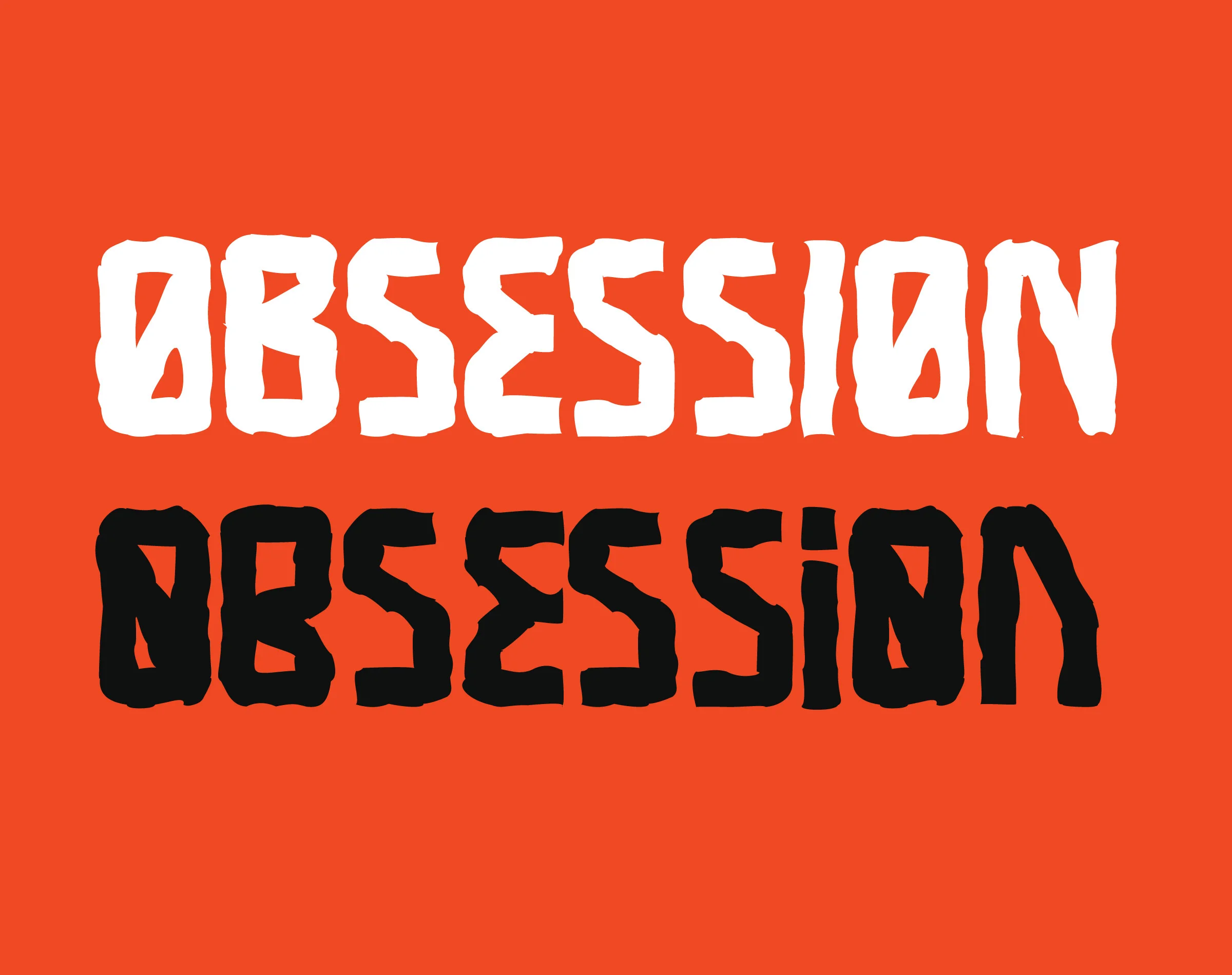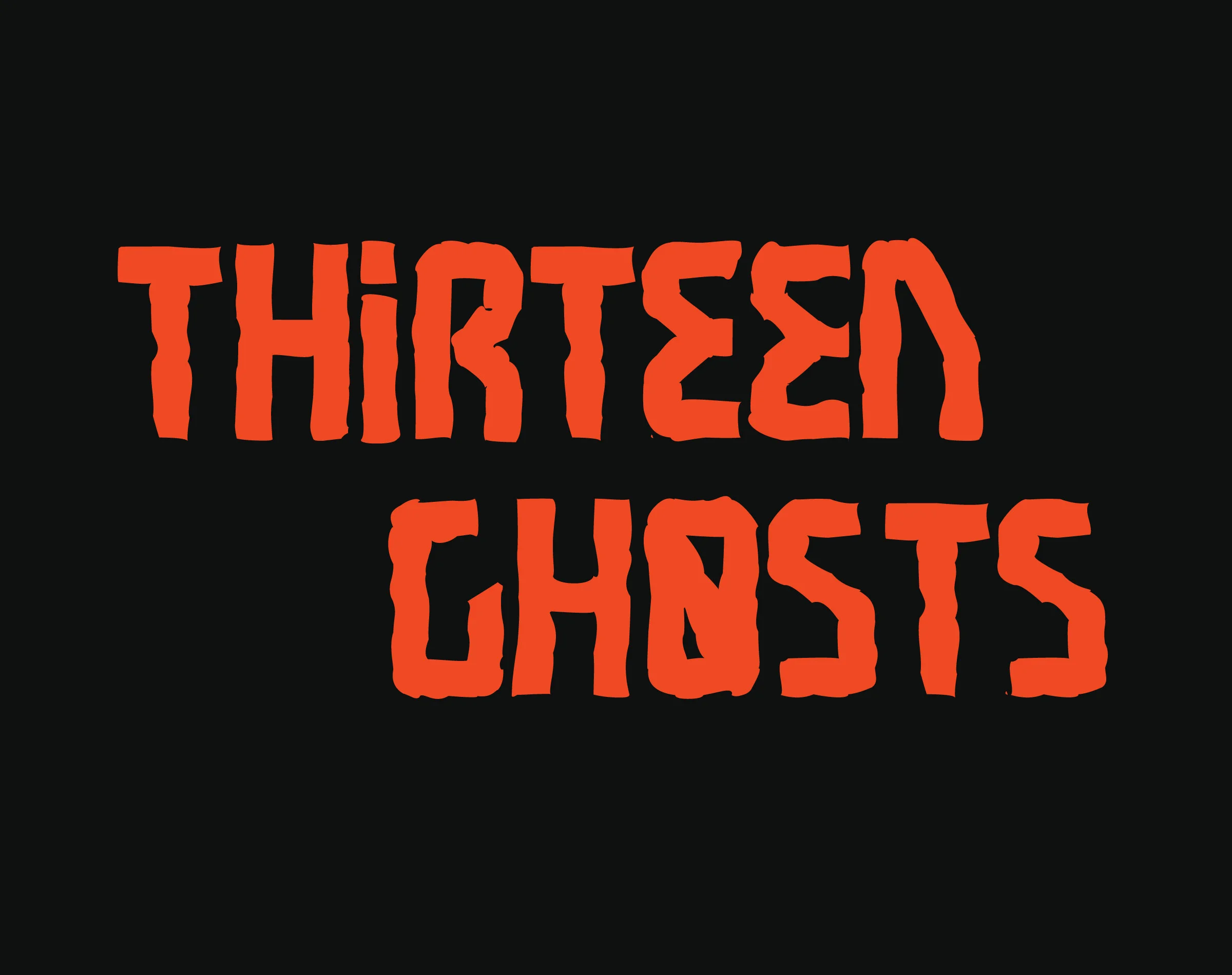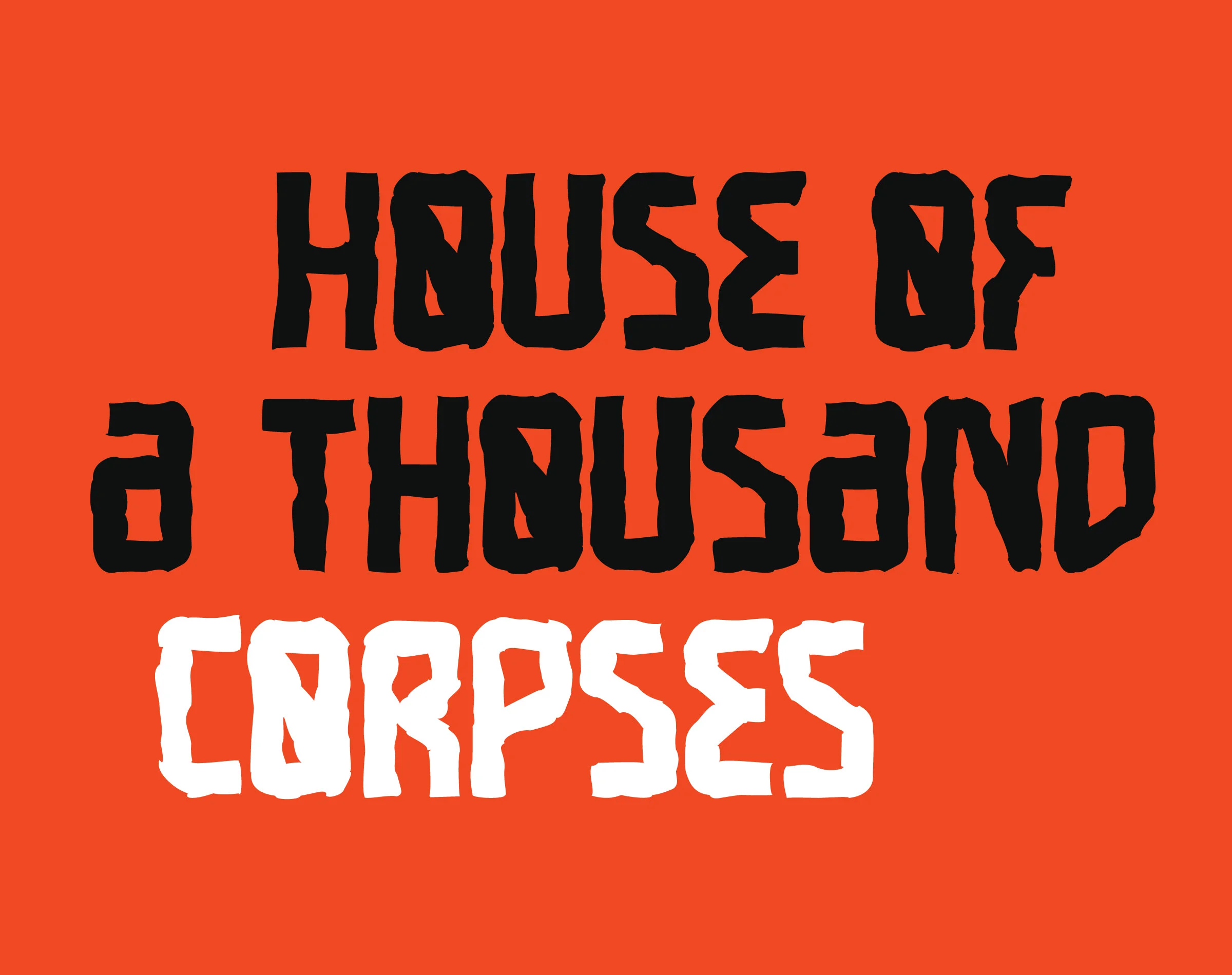
Headtraffic
Headtraffic is a bold horror-tech display font originally built as a title treatment for an alternative DJ mix project. Inspired by classic sci-fi and horror movie lettering, Headtraffic takes a modern geometric frame and distorts it into something sharp, weird, and built to own big titles, posters, and logos.